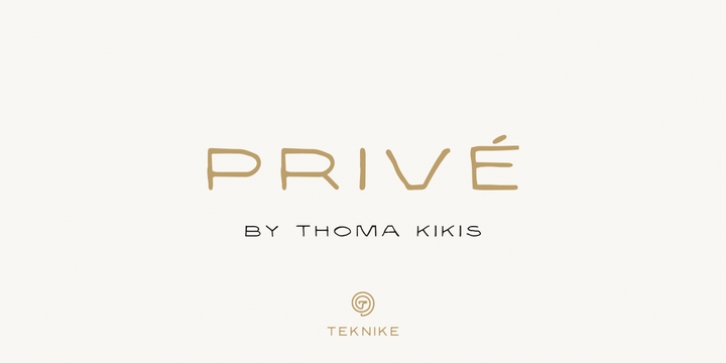
Privé is a display handwriting font. The typeface is a distinct uppercased style hand drawn font and designed to be easy to read. Privé name is Old French for "private" or "participating in secret". Privé is great for display work, invitations, writing, architecture, posters and headings.